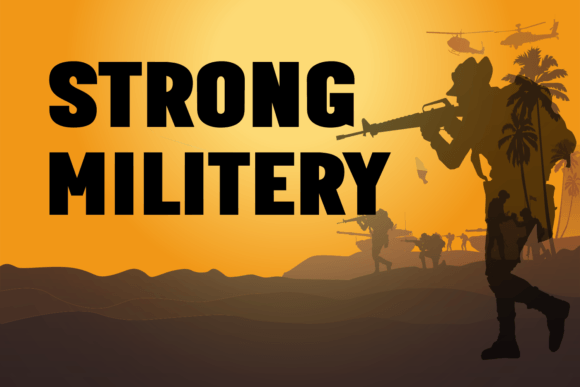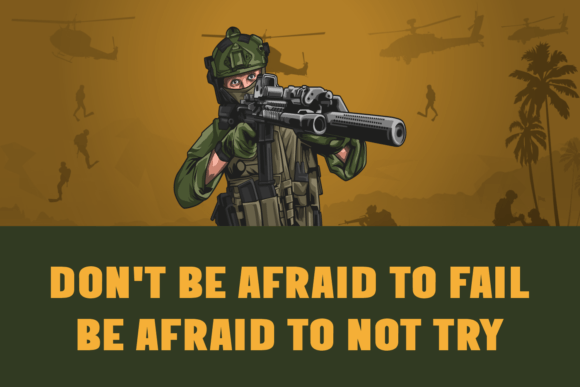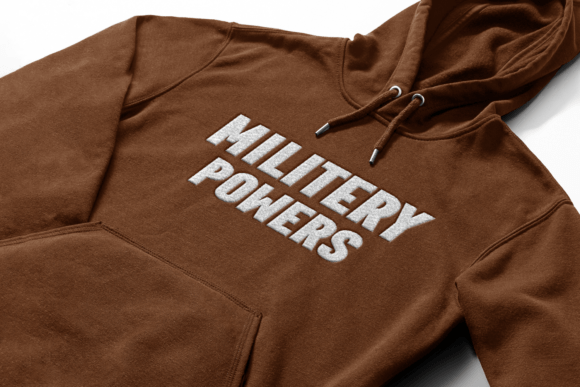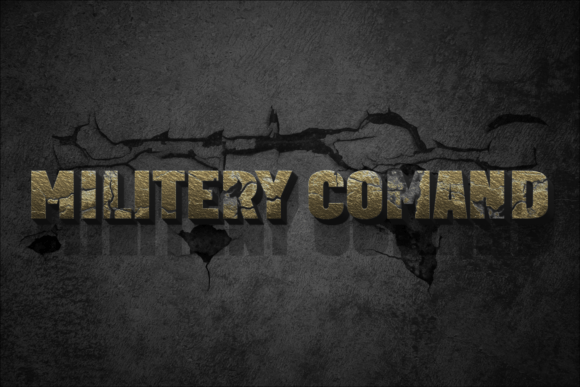
Introduction to Onehit Font
Onehit is a modern sans serif font.
This minimalist and clean vibe can easily apply to your favorite designs such as book covers, magazines, social media posts, invitations, and so much more .
Key Features of Onehit Font